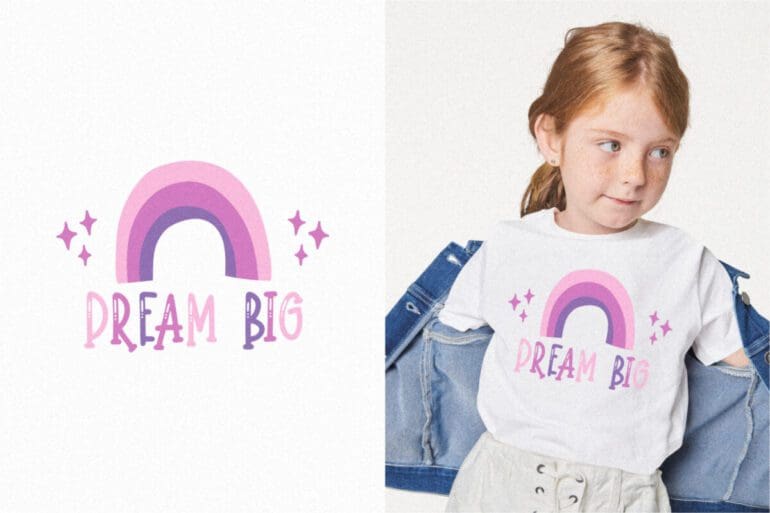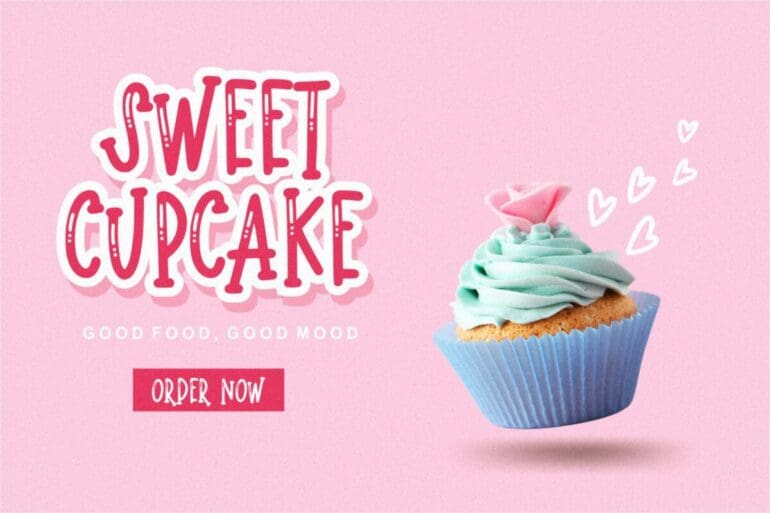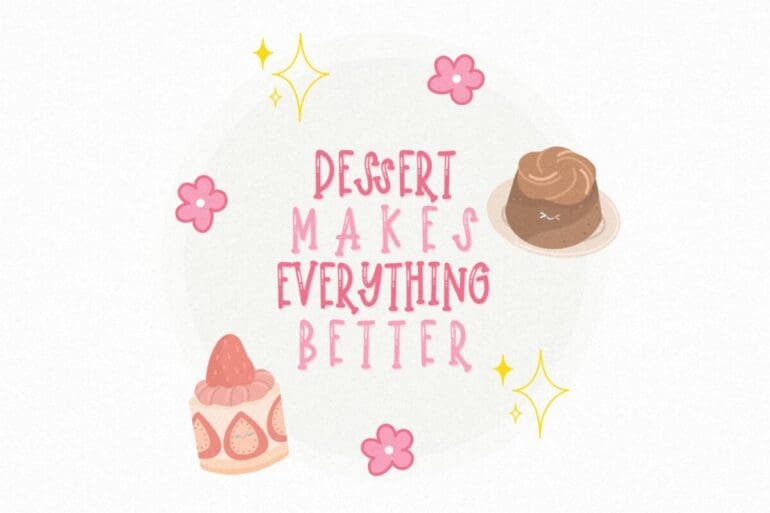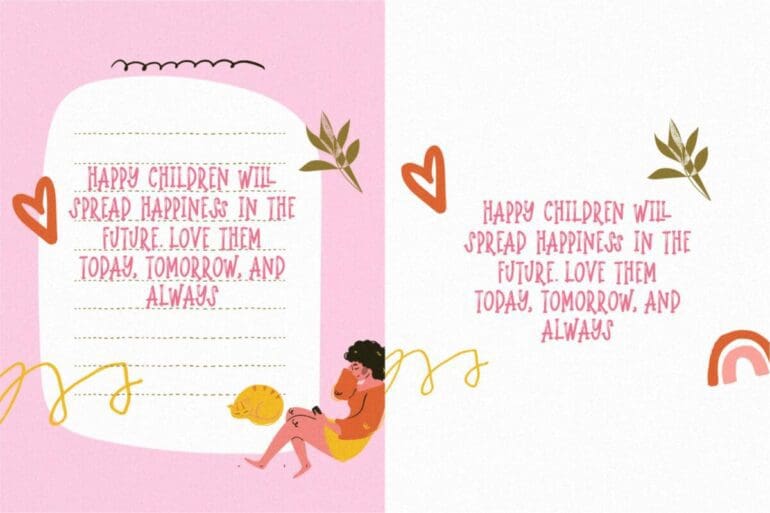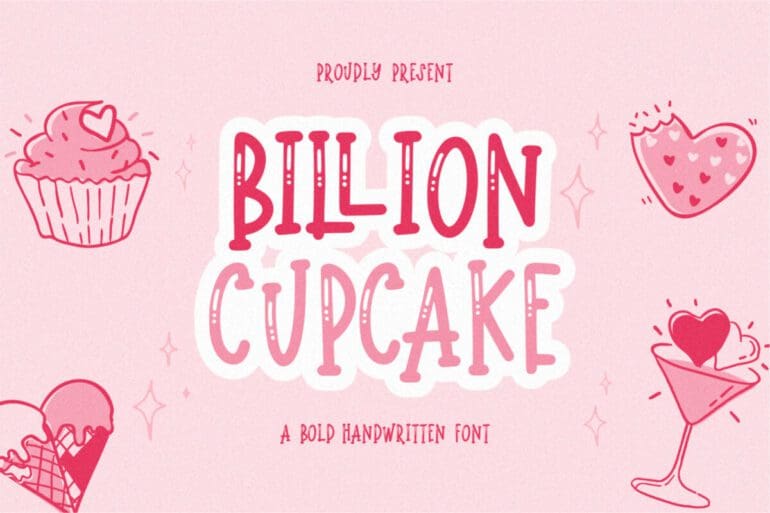
Billion Cupcake Font
Billion Cupcake is a cool, bubbly and fun display font. Whether you’re using it for crafts, digital design, presentations, or making greeting cards, this font has the potential to become your favorite go-to font, no matter the occasion!